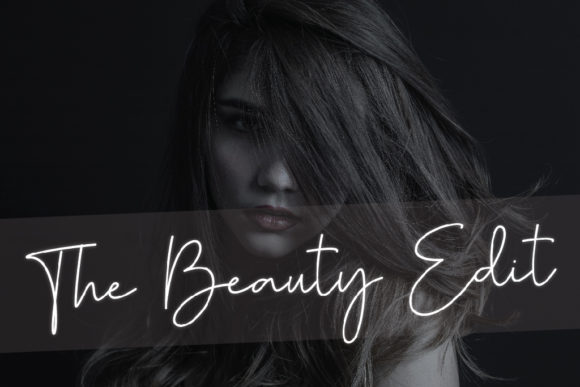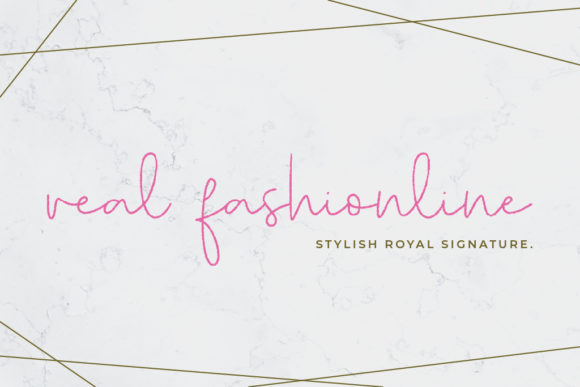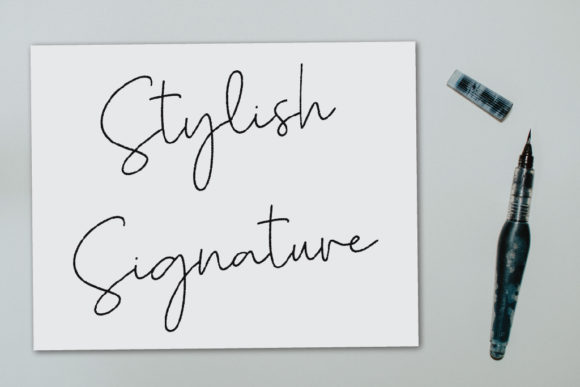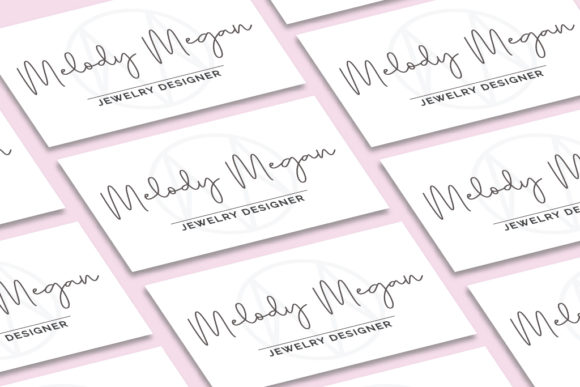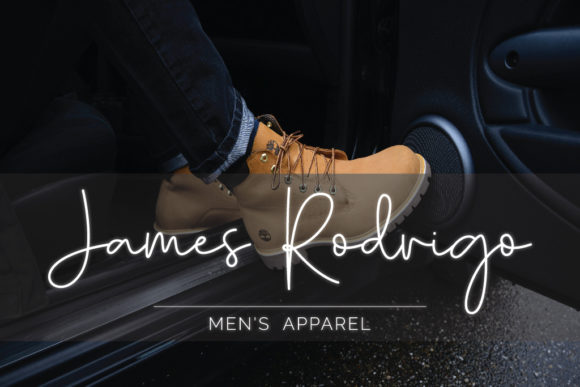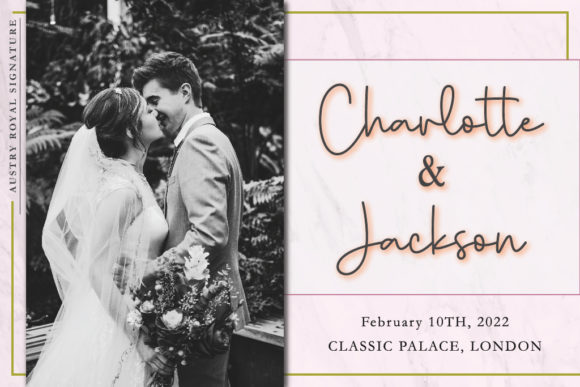
Introduction to Austry Royal Font
Have you ever found yourself stuck in a creative rut, searching for the perfect font to elevate your design project? I know I have! It was during one of those moments when I stumbled upon the stunning Austry Royal Font. Its elegant script design and modern feel immediately caught my eye, and I knew I had to learn more.
As a designer, I can appreciate the value of a high-quality design resource like the Austry Royal Font. Not only does it offer a unique and sophisticated look, but it’s also incredibly versatile, making it perfect for a wide range of creative projects, from logos and branding to invitations and social media posts.
Key Features of Austry Royal Font
- High-quality, elegant design perfect for creative projects
- Unique, cursive script font with a transparent background, ideal for overlaying on images or videos
- Includes multiple font styles and weights, allowing for customization and flexibility in design
- Designed with a high resolution of 300 DPI, ensuring crisp and clear text in both digital and print projects
- Perfect for adding a touch of sophistication and elegance to any design, from wedding invitations to branding materials
Honest Review: Austry Royal Font
I recently had the chance to experiment with the Austry Royal Font, and I must say it’s been a pleasant experience. As a designer, I’m always on the lookout for high-quality design resources to elevate my creative projects.
One of the standout features of the Austry Royal Font is its transparent background, which makes it incredibly versatile and easy to work with. The font itself is clean and elegant, with a modern aesthetic that’s perfect for a wide range of design applications.
- ✨ High-quality design with a modern aesthetic
- ⚠️ Limited character set, which may not be suitable for complex design projects
- ⚠️ Not suitable for small font sizes due to potential readability issues
Overall, I’m impressed with the Austry Royal Font. While it may have some limitations, its high quality and transparent background make it an excellent choice for designers looking for a reliable design resource. With a little creativity, the Austry Royal Font can help take your design projects to the next level.
Tips for Getting the Most Out of Austry Royal Font
Use Austry Royal Font as a design resource for your next creative project. Experiment with different font sizes, colors, and styles to add visual interest to your design. Take advantage of its transparent background to create a seamless design.
Austry Royal Font is perfect for use in a variety of creative projects, including logos, branding materials, and marketing materials. Its high quality and transparent background make it an ideal choice for designers looking for a versatile and effective font.